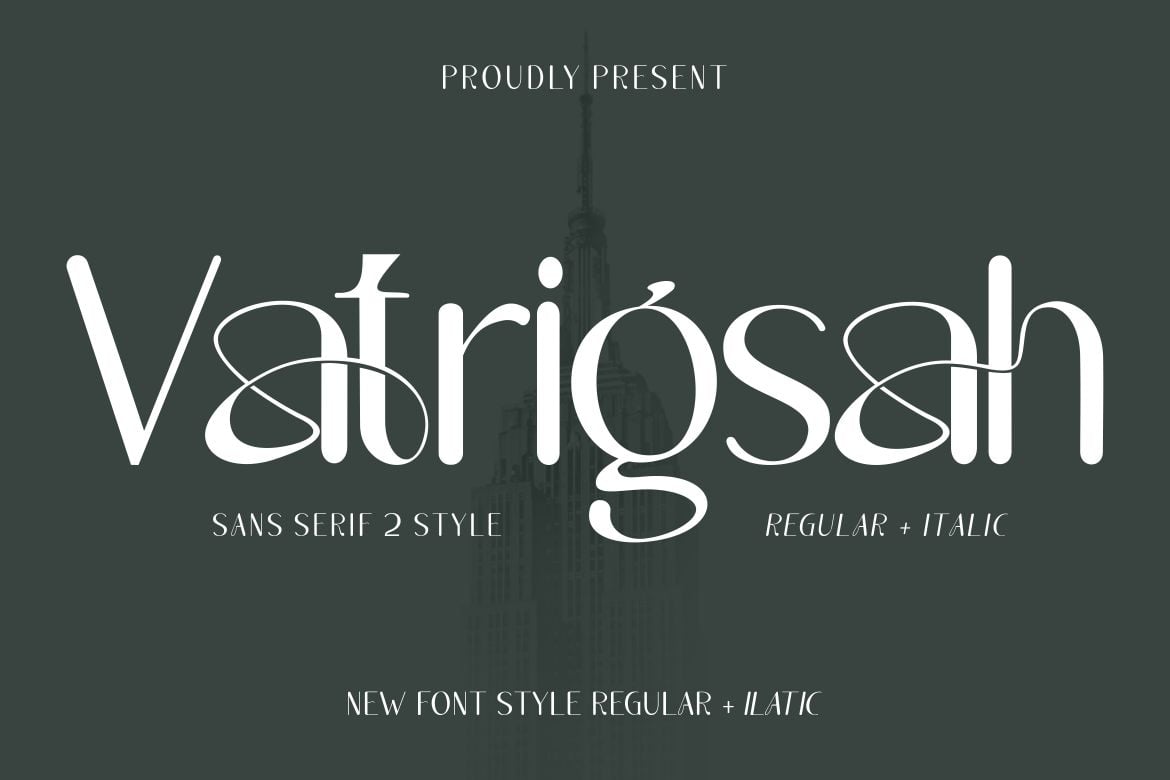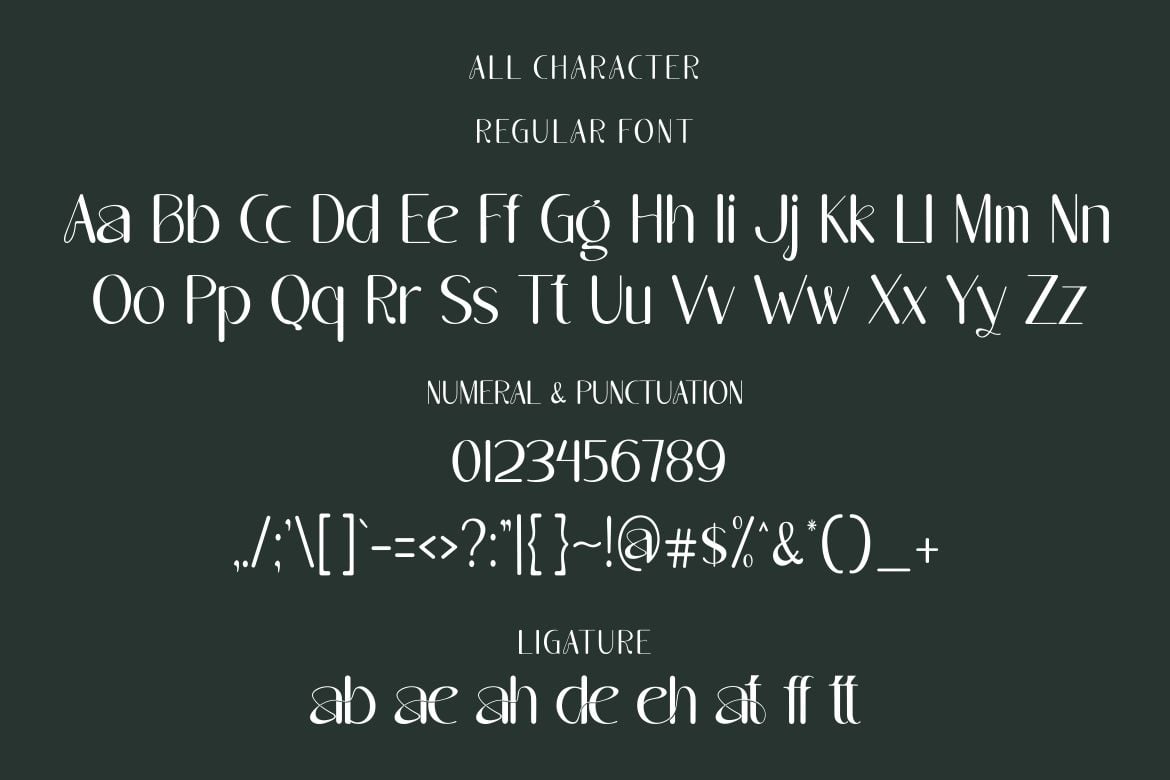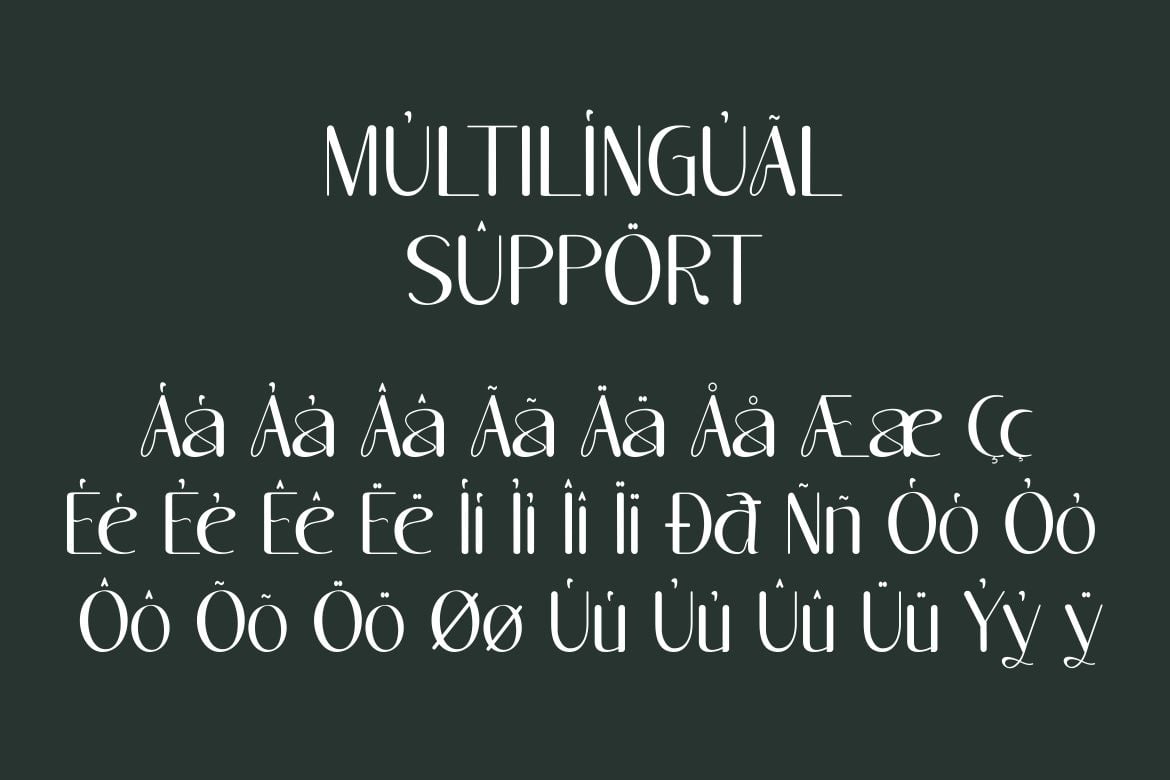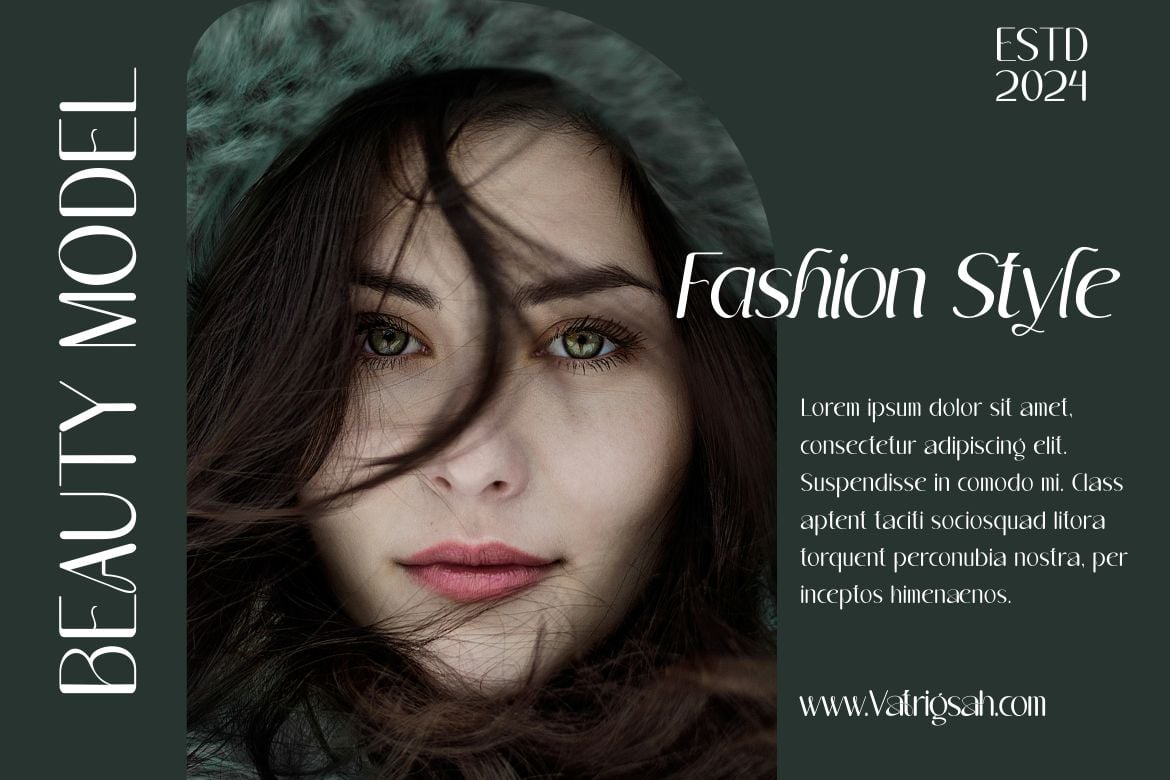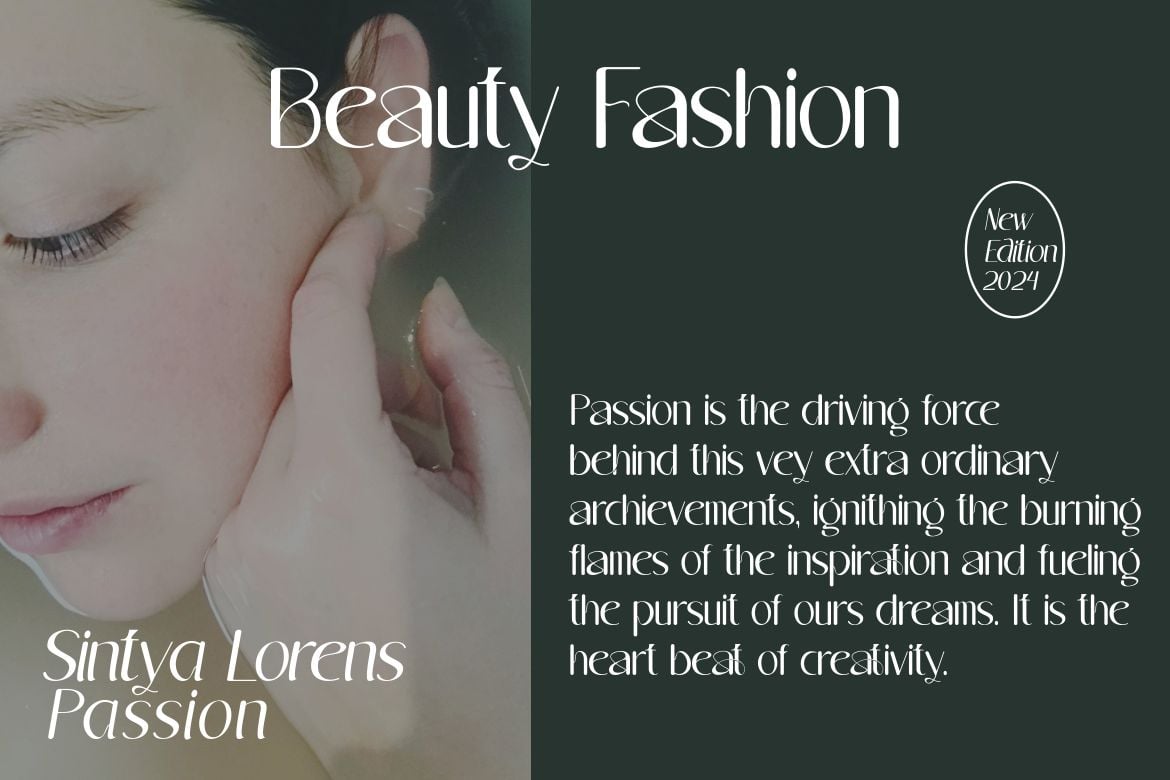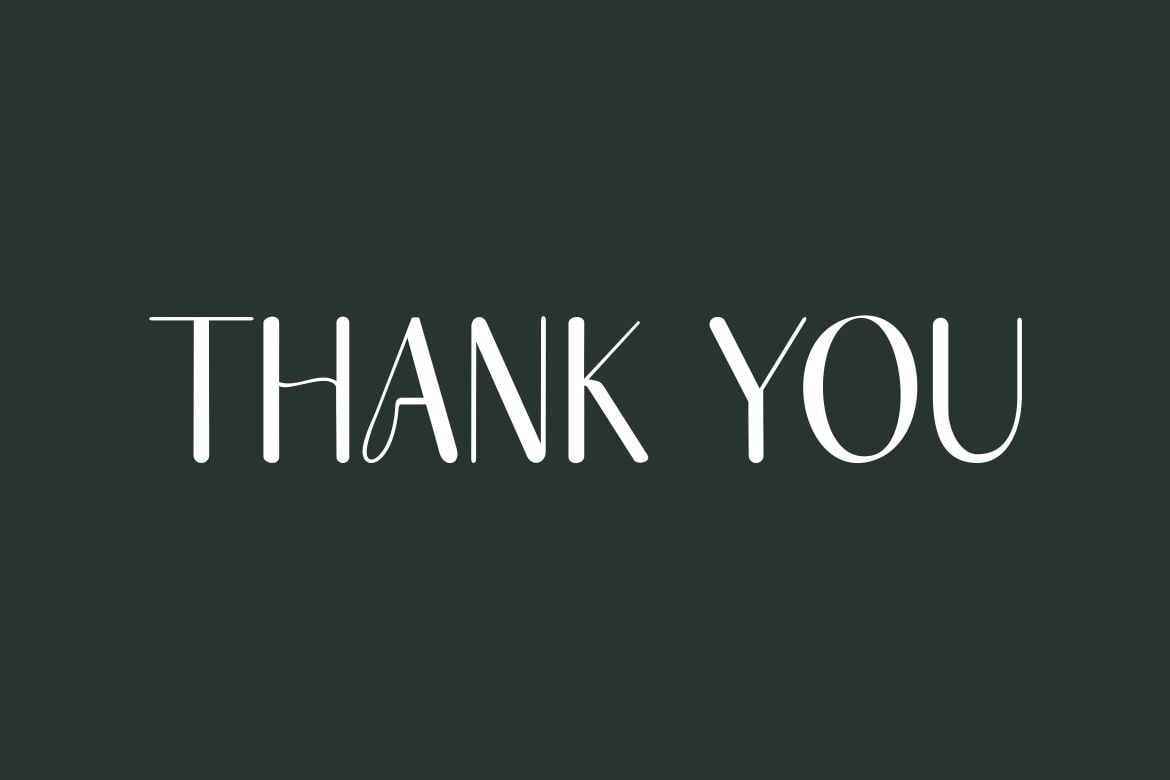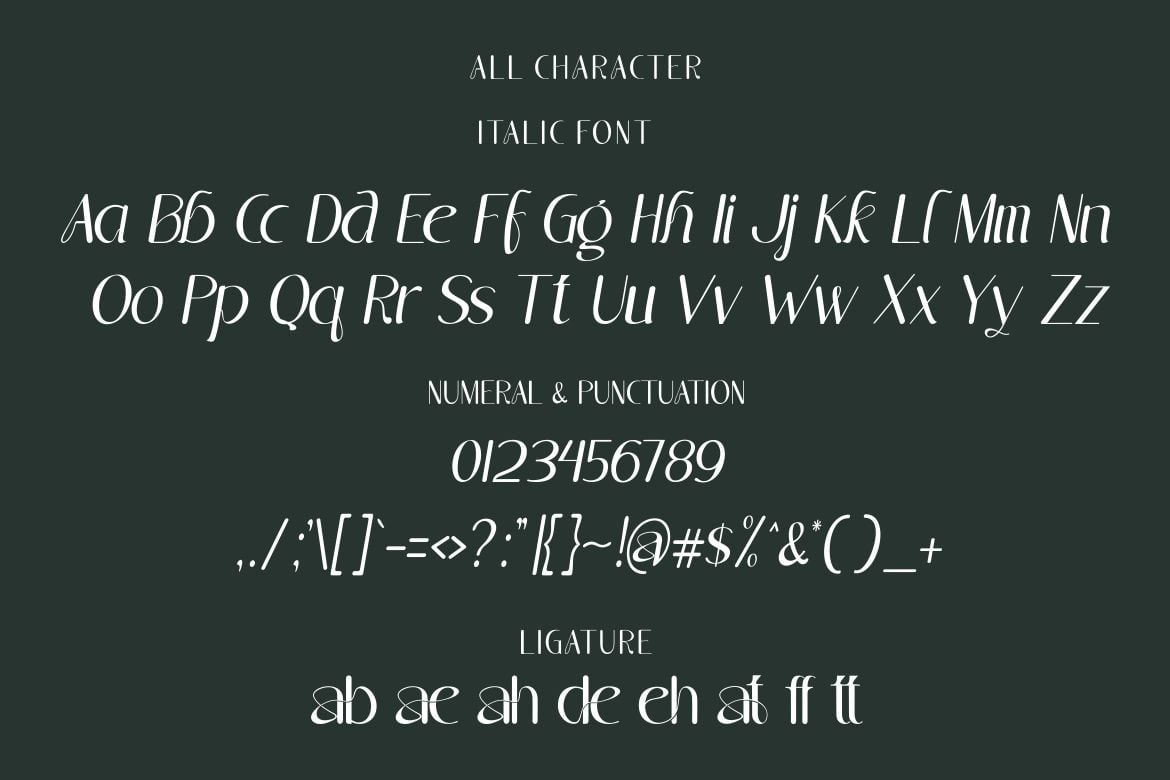
Vatrigsah – Luxury Font Family
Proudly present our new product Vatrigsah – Luxury Font Family
is a modern and authentic font. Perfect for professional needs and product branding, this font is suitable for any branding project such as quotes, logos, blog headers, posters, ribbons, letters, invitations, stationery, etc… Designed to be versatile and flexible that can be used on a variety of projects and media. extraordinary in a variety of contexts.